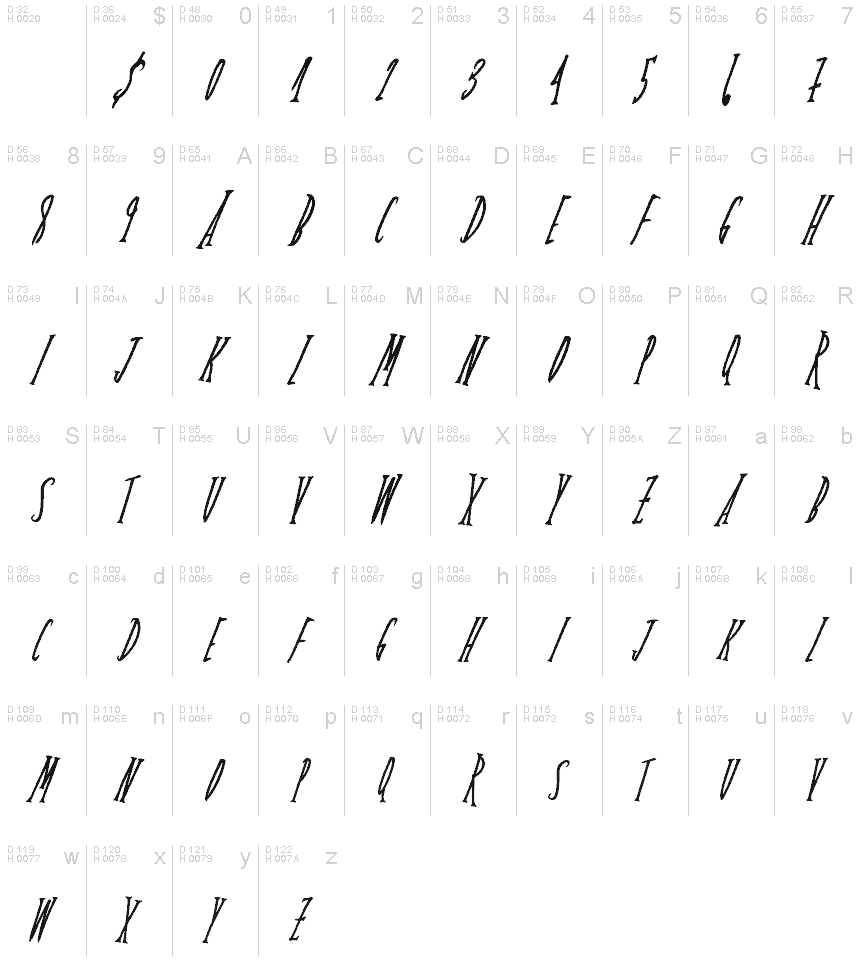
OldenTimes
Olden Times is a captivating handwritten font designed by Xerographer Fonts' Max Infeld. Featuring a distinct condensed width, this font exudes a captivating vintage charm, evoking a sense of nostalgia and timelessness. The bold, sweeping strokes and angular, organic forms give the text a striking, almost calligraphic quality, making it a versatile choice for a wide range of design applications, from editorial layouts and album covers to retro-inspired branding and packaging.
Olden Times' unique aesthetic lends itself particularly well to projects seeking to convey a sense of history, authenticity, or a rustic, handcrafted aesthetic.